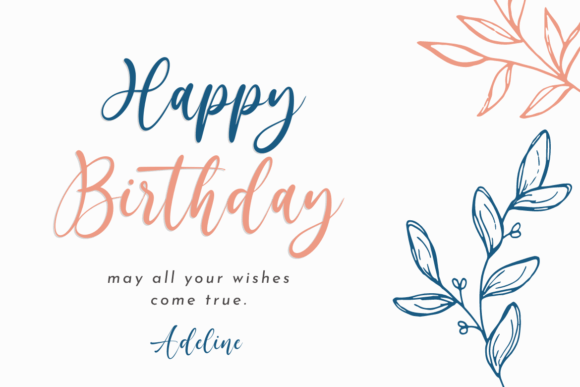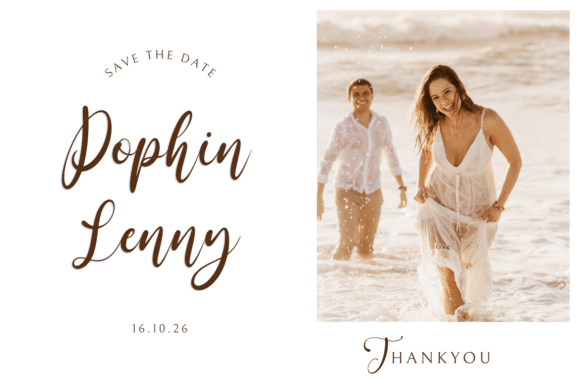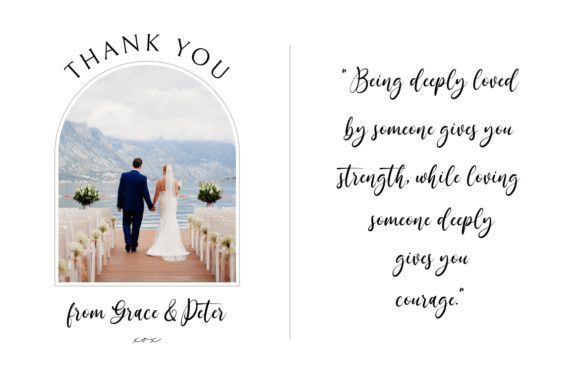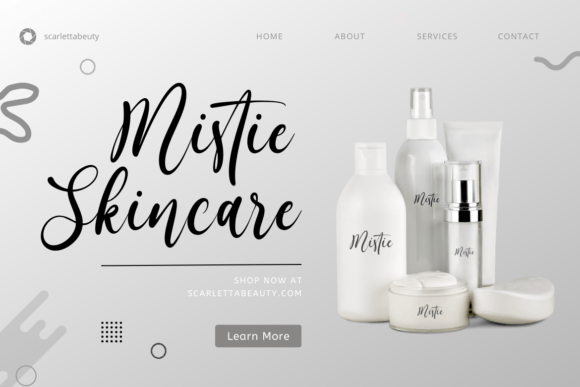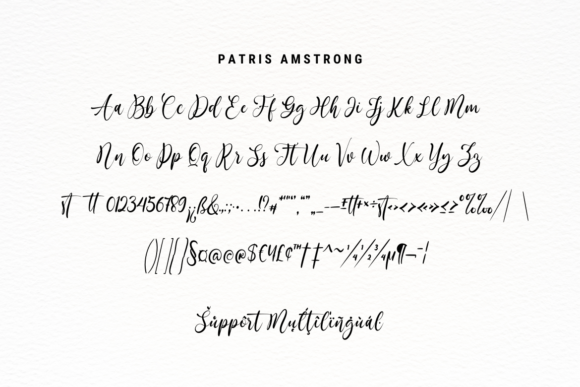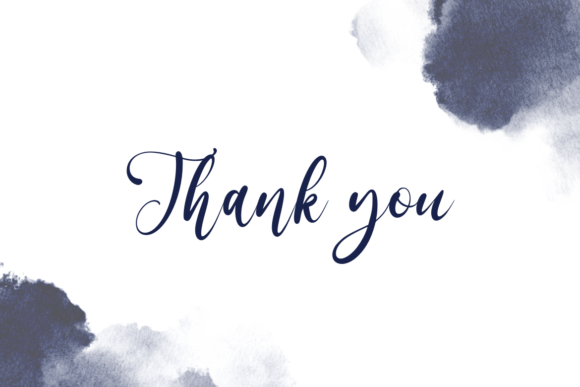
Introduction to Patris Amstrong Font
Patris Amstrong is a lovely, stylish, and greatly detailed handwritten font.
Very suitable for all your lovely projects such as Valentineโs theme designs, wedding invitations, photography, logos, and more This font will guarantee a romantic touch to each of your creations.